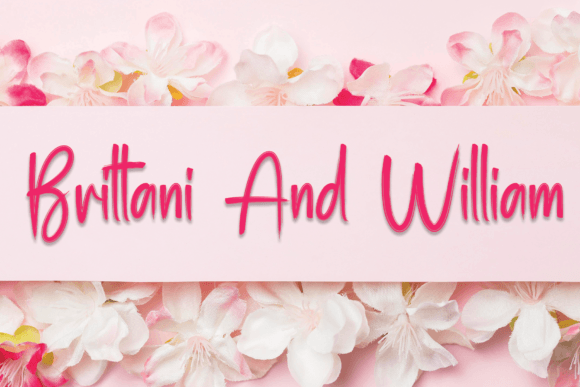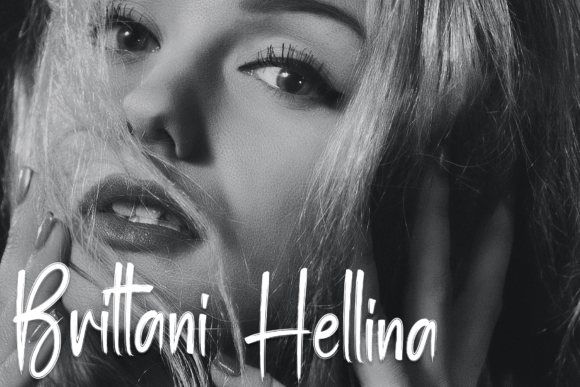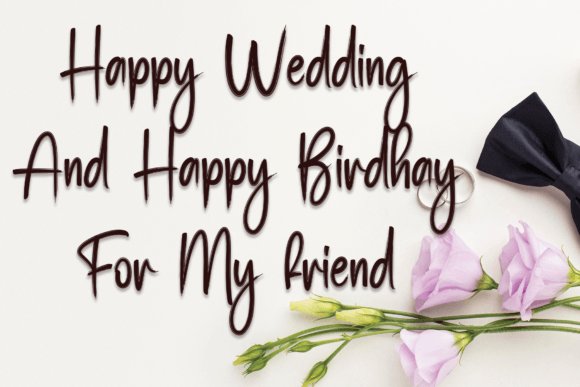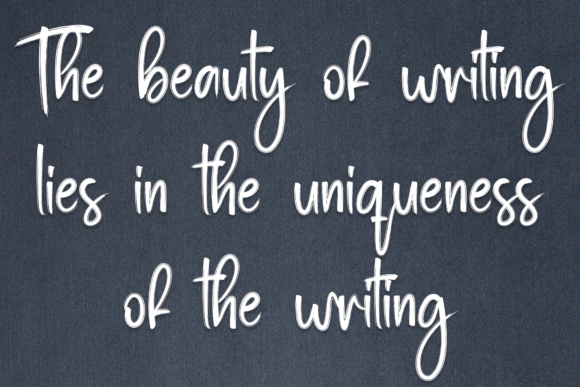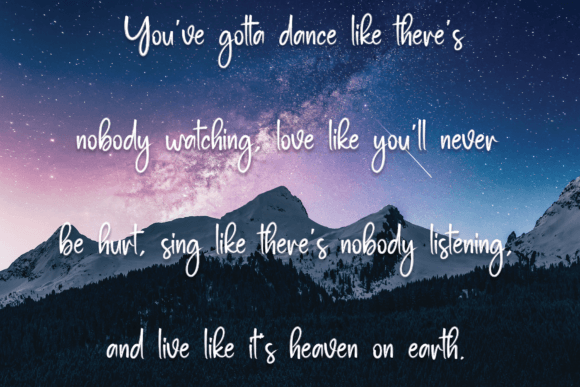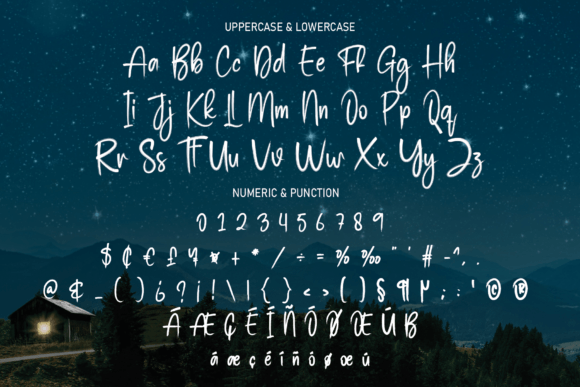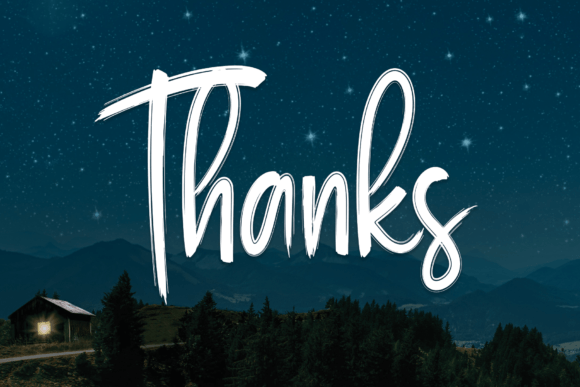
Christmas Starlight Font
About Christmas Starlight Font
Christmas Starlight font is a beautifully crafted handwritten typeface that perfectly captures the festive spirit of the holiday season. When you download Christmas Starlight font, you get access to a stylish and elegant script that adds warmth and charm to all your creative projects. This font stands out with its graceful strokes and distinct character, making it ideal for seasonal designs.
Perfect for Holiday Projects
The Christmas Starlight font is designed specifically for holiday-themed creations. Whether you’re working on wall displays, wedding invitations, social media post logos, or festive advertisements, this font will add a unique handwritten touch that resonates with the Christmas spirit. Its elegant style enhances product packaging, product designs, and labels, giving them a cozy, handcrafted feel.
Versatile Use Across Designs
Beyond holiday cards and invitations, Christmas Starlightfont is excellent for photography overlays, watermarks, stationery, and branding projects. Its versatility allows designers to use it across various formats while maintaining readability and style. Download Christmas Starlightfont to bring a sophisticated yet joyful vibe to your work.
Why Download Christmas Starlight Font?
Choosing to download Christmas Starlightfont means choosing quality, elegance, and versatility. Its handcrafted style is perfect for anyone wanting to add a personal and festive flair to their projects. This font’s balanced curves and refined look make it an essential tool for designers focusing on holiday and seasonal creations.